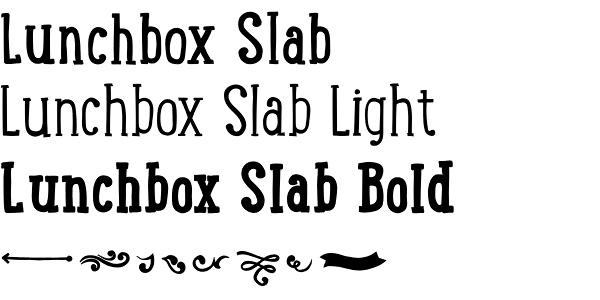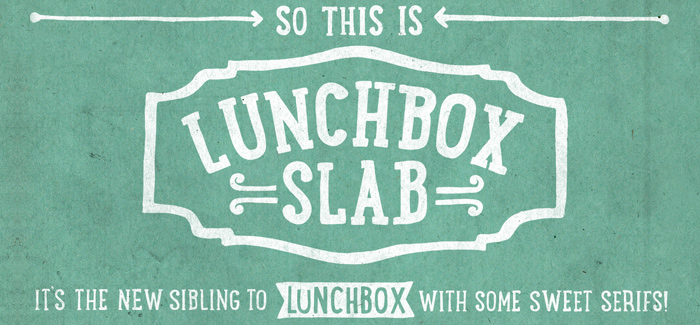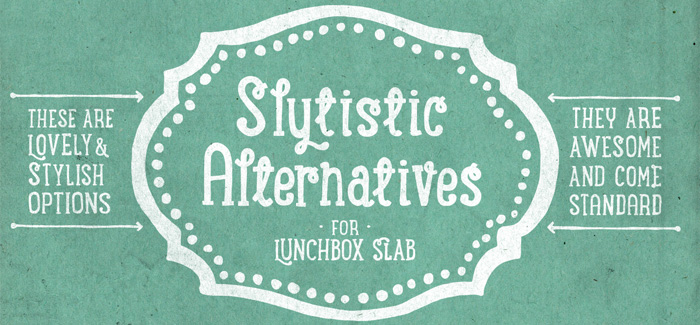
Lunchbox Slab font
Lunchbox Slab font family is a set of three typefaces + ornaments. Designed by Kimmy Design Lunchbox Slab reveals the great power of hand-drawn font enhanced by many different open type features like Stylistic & Contextual alternates, Ligatures and Swashes. The family goes with a dozen catchwords and beautifully designed ornaments, frames and decorations to complement your typography. There are two words that describe Lunchbox Slab best – Identity & Authenticity. In fact if you have this font family in use you possibly won’t need anything else to do on your design identity – especially if you use the countless options for personalization in open type aware software. Its classic and friendly vintage look will serve you best for you authenticity.
Highly recommended for use in food packaging, wine labels, posters, letterpress designs, stationary and even attractive headlines.